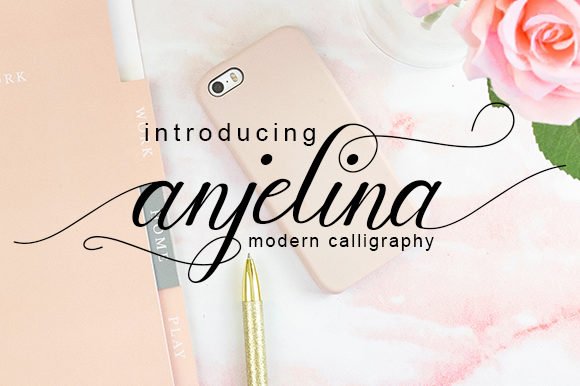
Give Your Designs a Touch of Elegance with Anjelina Font
Have you ever been brainstorming a new design project and suddenly felt the urge to add a personal touch? Maybe you’re working on a wedding invitation, a business logo, or a heartfelt greeting card. Whatever the project may be, we’ve all been there – searching for the perfect font to convey our message and make it truly special. That’s where Anjelina Font comes in – a stunning handwritten font that effortlessly elevates any design creation.
With Anjelina Font, you can add a contemporary twist to classic calligraphy, giving your designs a unique and sophisticated look. Whether you’re a seasoned designer or just starting out, this versatile font is a valuable addition to your toolkit. Its elegant, cursive script will add a touch of warmth and personality to any project, making it a must-have for designers looking to make a lasting impression.
Anjelina Font Key Features
- Font Family: Anjelina
- Font Styles: Regular, Bold, Italic, Bold Italic
- Unique Characteristics: Elegant, cursive script font with a feminine touch, suitable for wedding invitations, greeting cards, and other romantic designs
Anjelina Font Review
Overall, I think the Anjelina font has some lovely qualities that make it a great addition to any design project. Here are some of the things that stand out to me:
- ✨ Elegant and feminine feel: The Anjelina font has a beautiful, delicate quality to it that makes it perfect for projects that require a touch of sophistication and romance.
- ✨ Versatile: This font is great for a variety of uses, from wedding invitations to branding materials and everything in between.
- ✨ Nice range of weights and styles: The Anjelina font comes in a range of weights and styles, making it easy to find the perfect version for your project.
That being said, there are a few limitations to consider:
- ⚠️ Limited language support: If you need to use this font for a project that requires a lot of non-English language support, you may want to look elsewhere.
- ⚠️ Some characters may not render correctly: I noticed that some of the characters in the Anjelina font didn’t render correctly in certain software, which can be frustrating.
Overall, I think the Anjelina font is a great choice for designers who want a beautiful, elegant font for their projects. While it may have a few limitations, the pros definitely outweigh the cons.
Tips: Use Anjelina Font for creative and artistic projects, such as invitations, posters, and social media graphics. Experiment with different font sizes and colors to create a visually appealing design.
Tips: Use Anjelina Font for more complex designs, such as logos, branding materials, and editorial graphics. Take advantage of the font’s unique characteristics to add a touch of elegance and sophistication.
Tips: Use Anjelina Font for presentations, reports, and other business materials. Keep in mind that Anjelina Font may not be available in all versions of PowerPoint or Word, so check your font library first.
Anjelina Font is ideal for:
- Creative and artistic projects
- Editorial